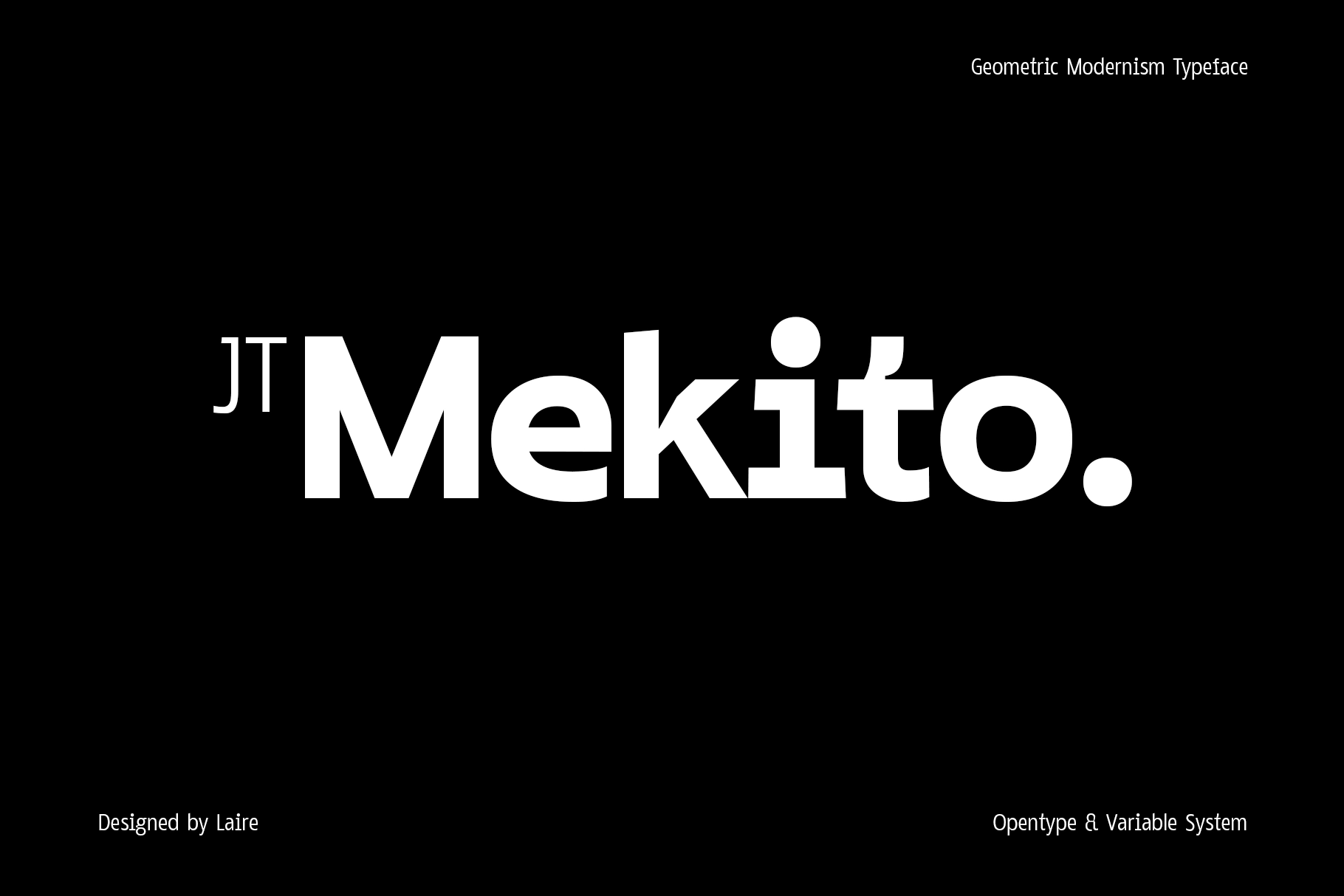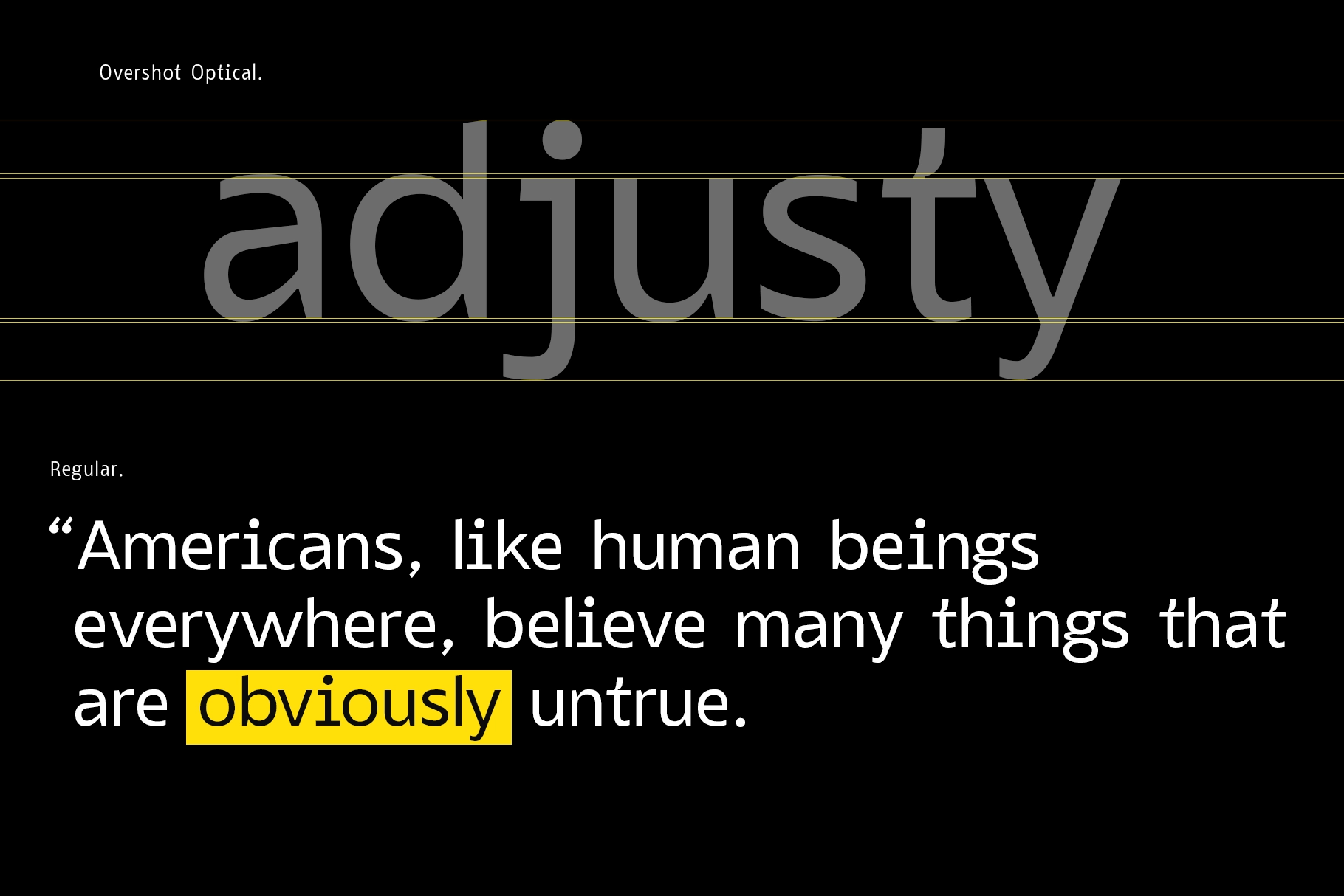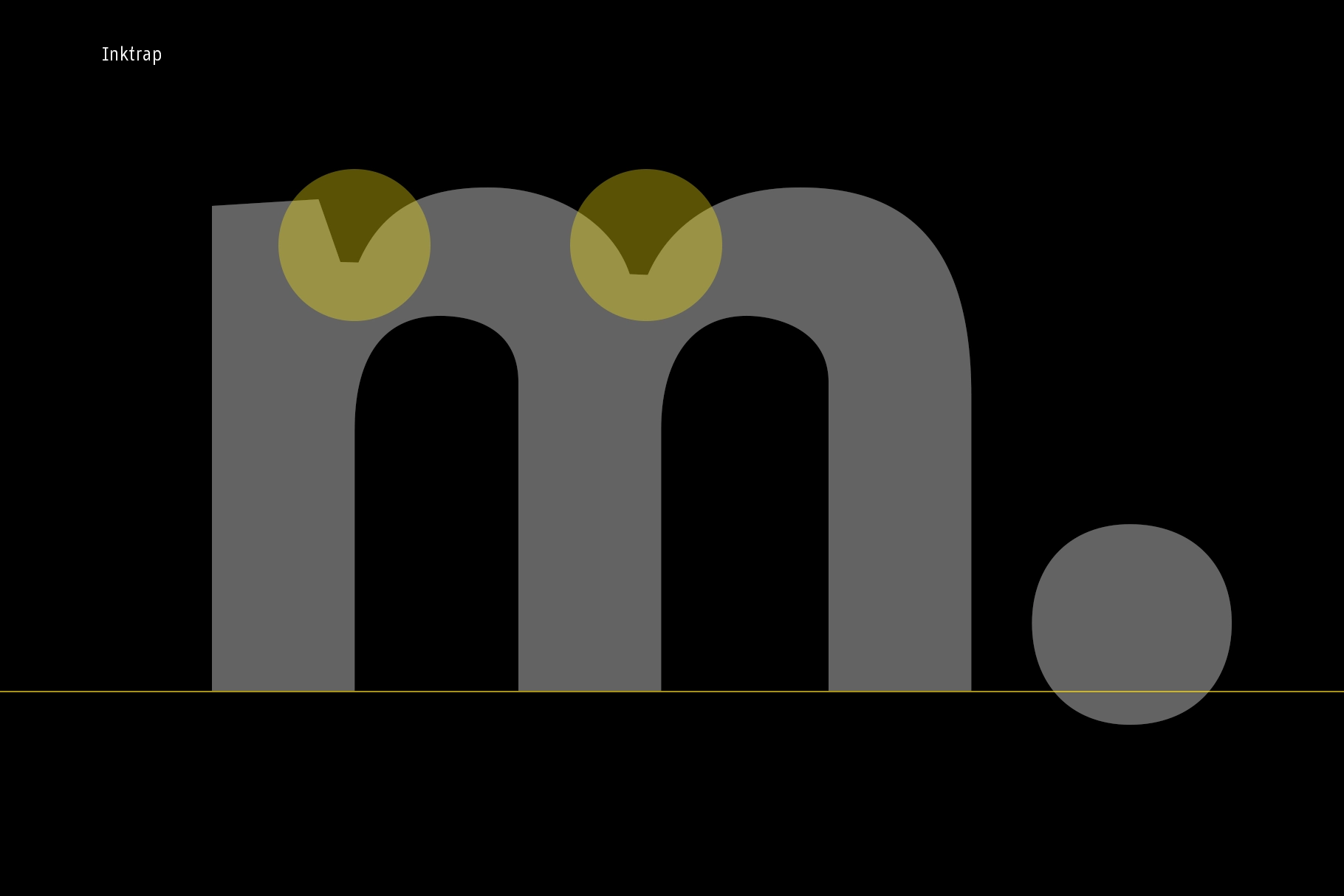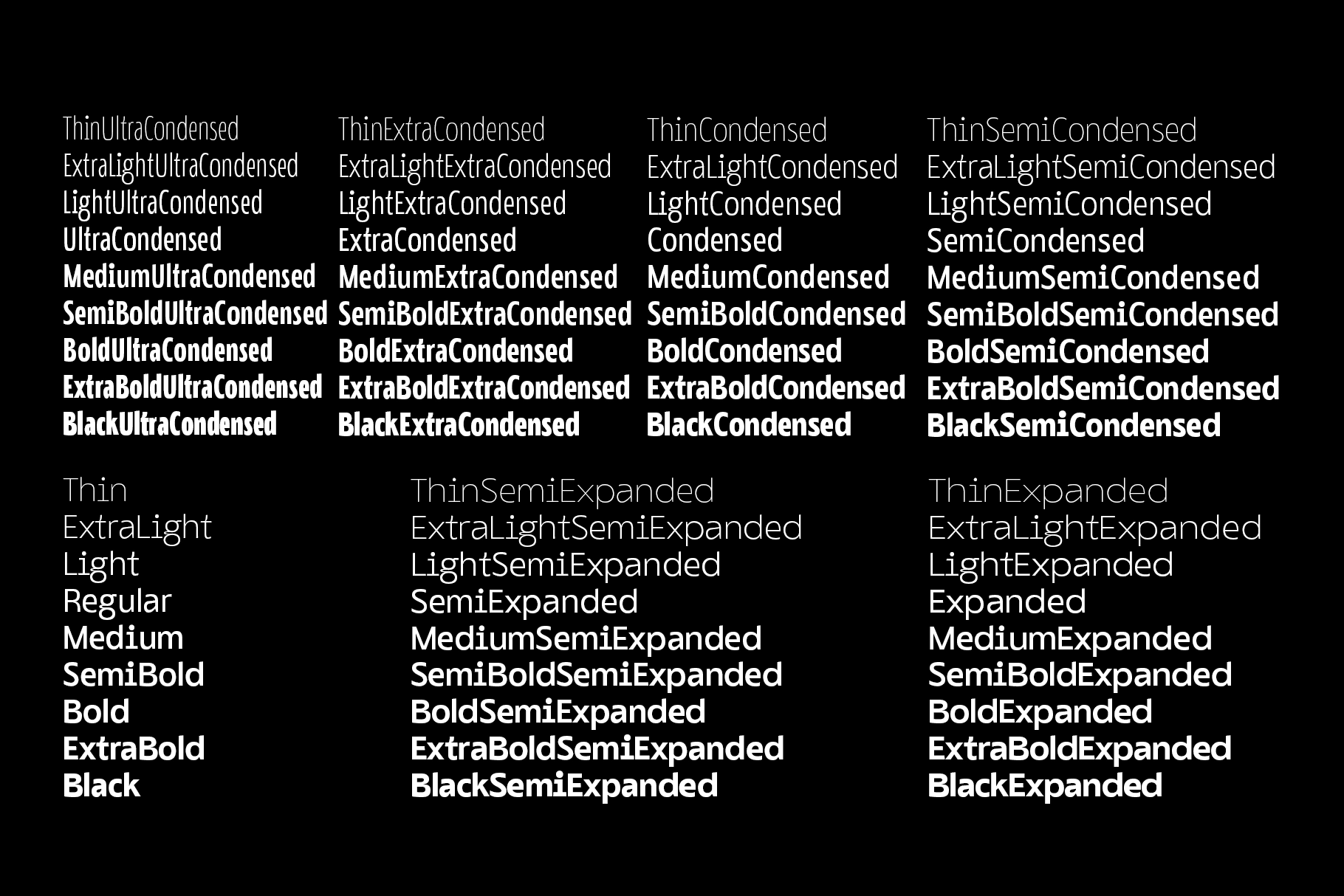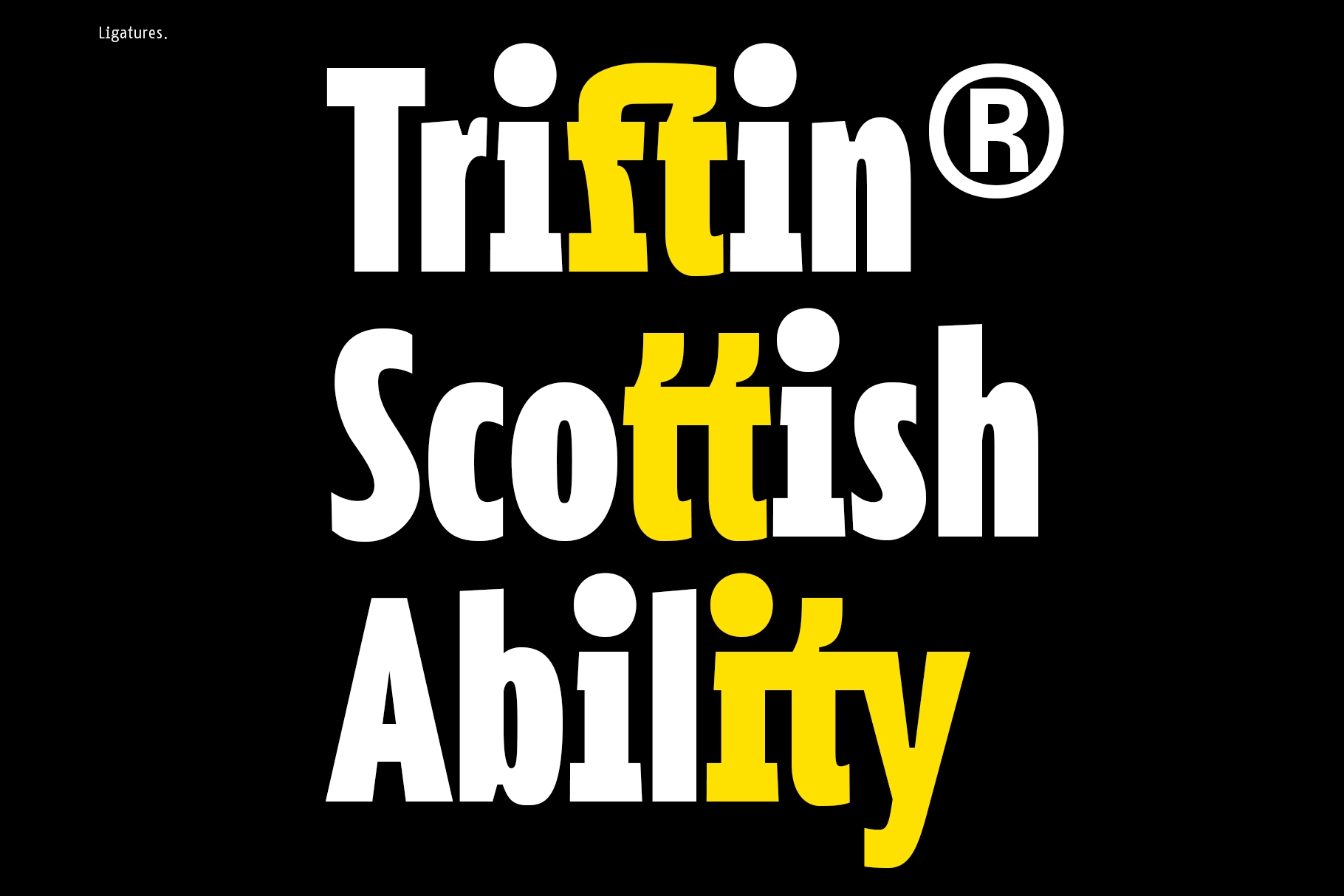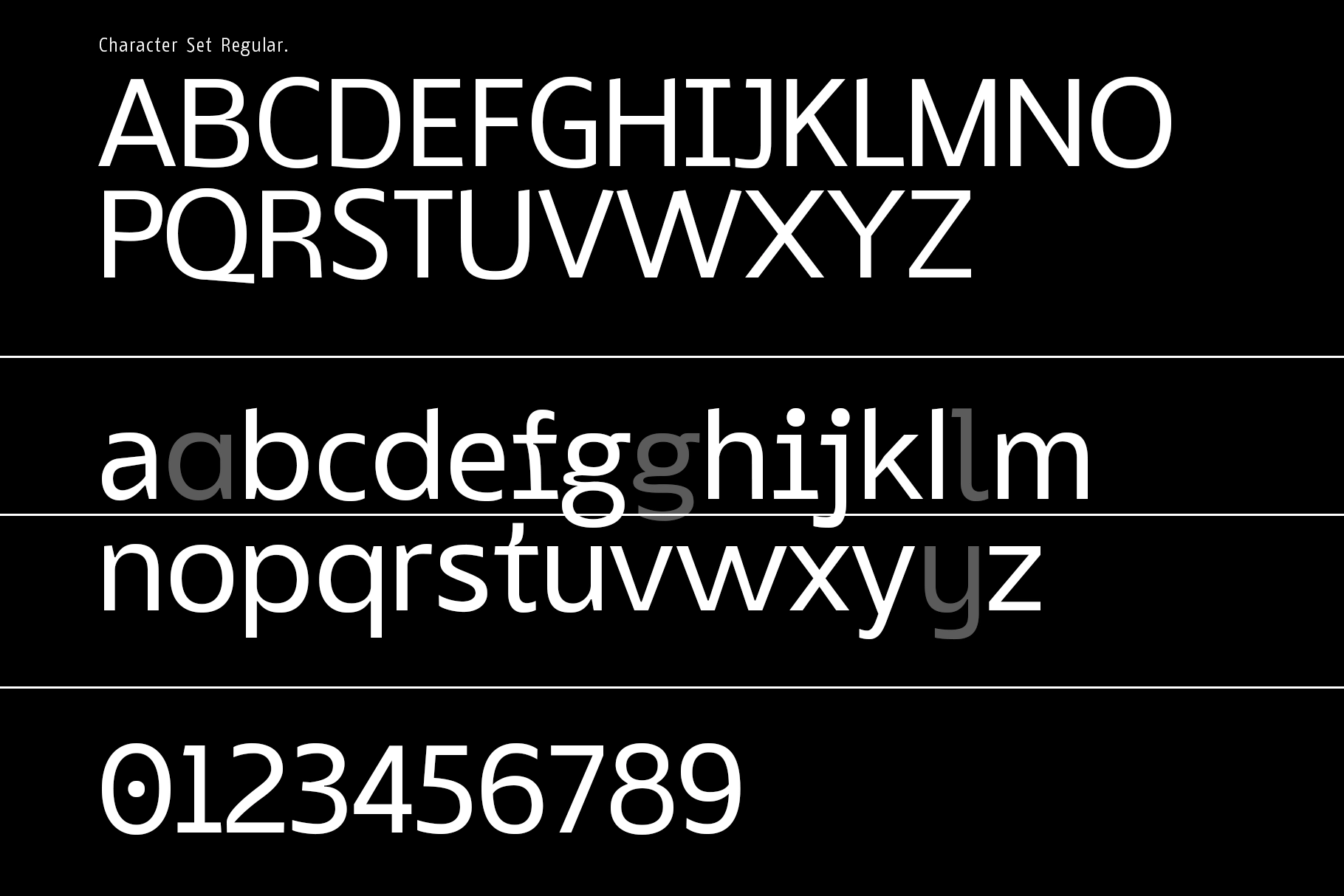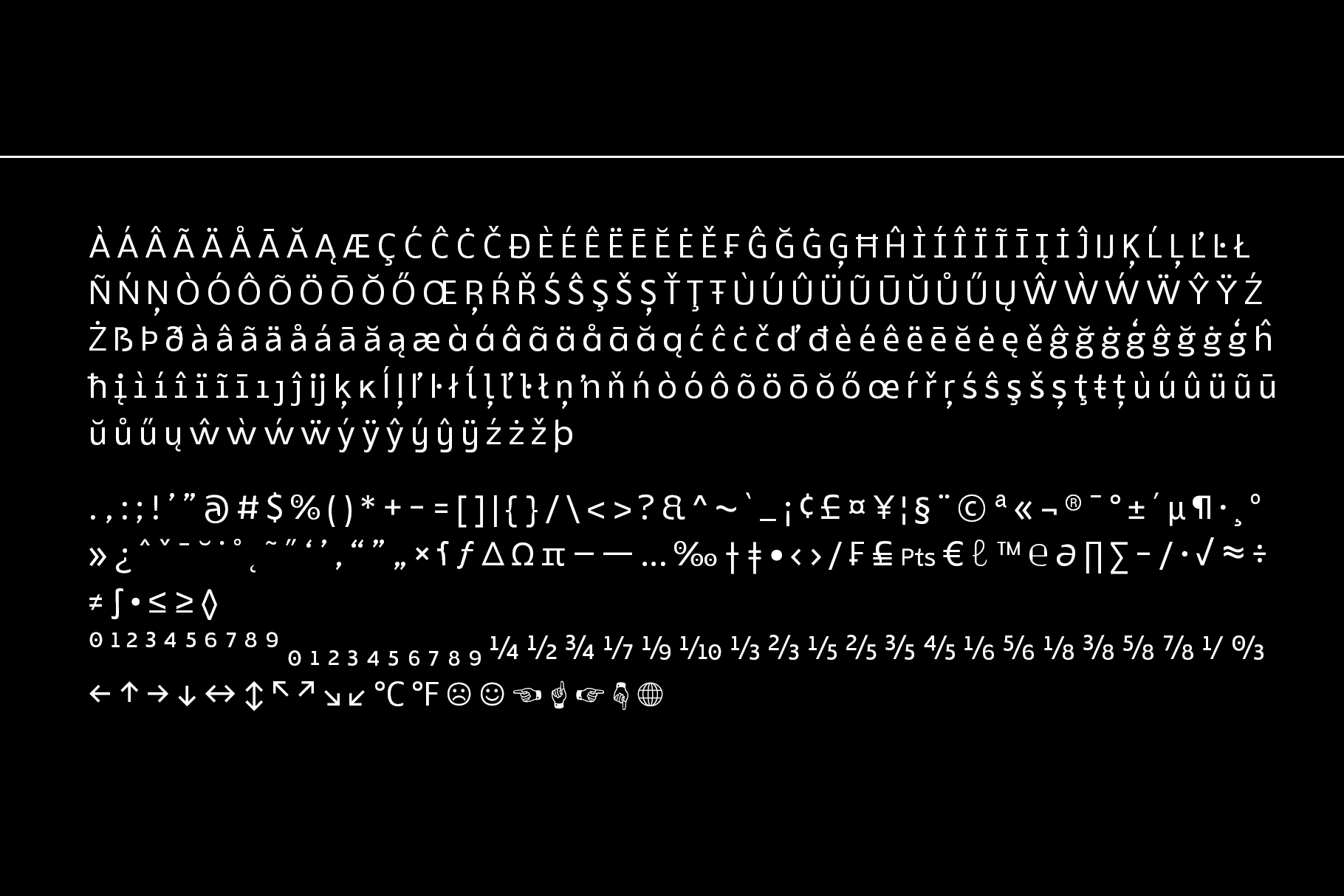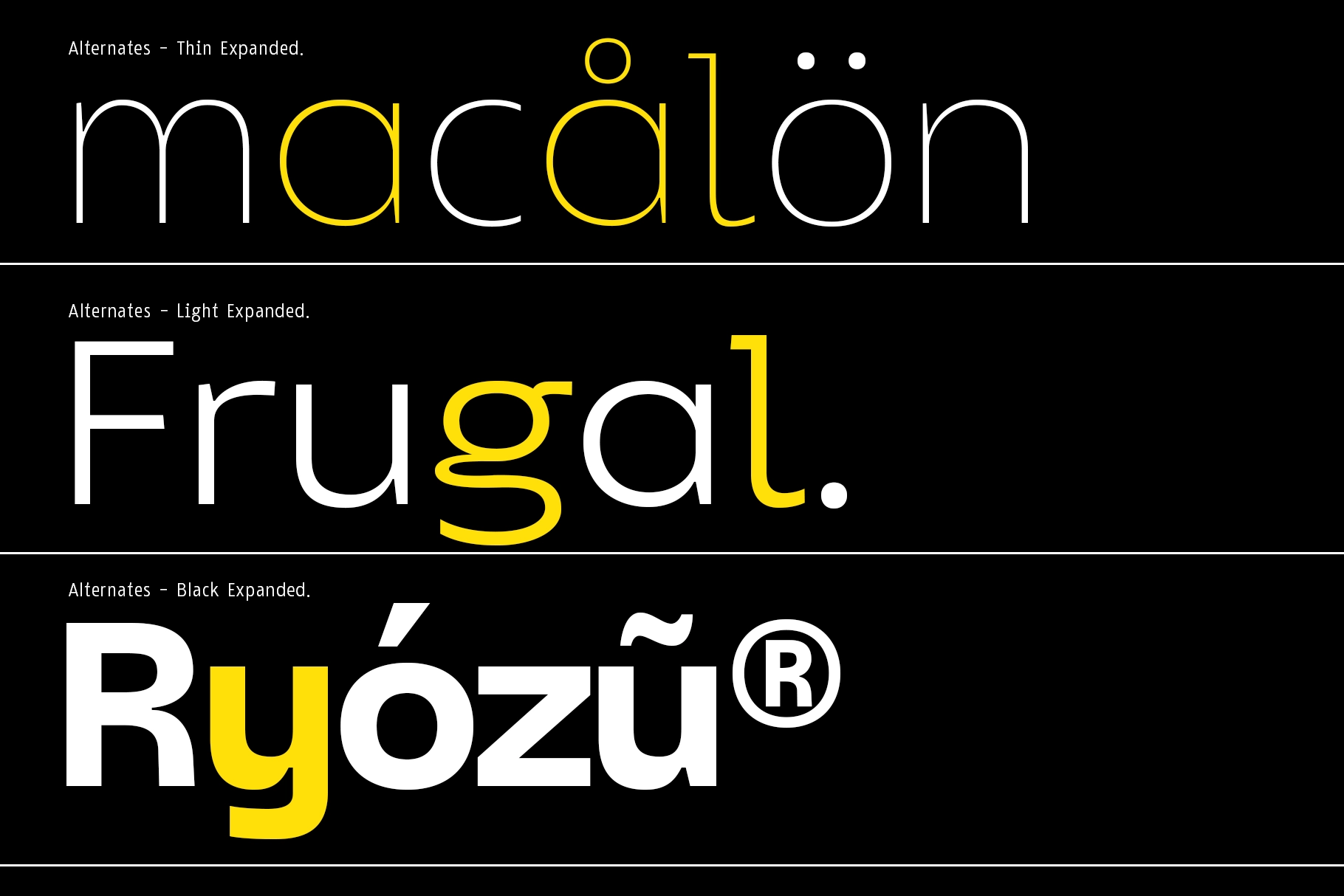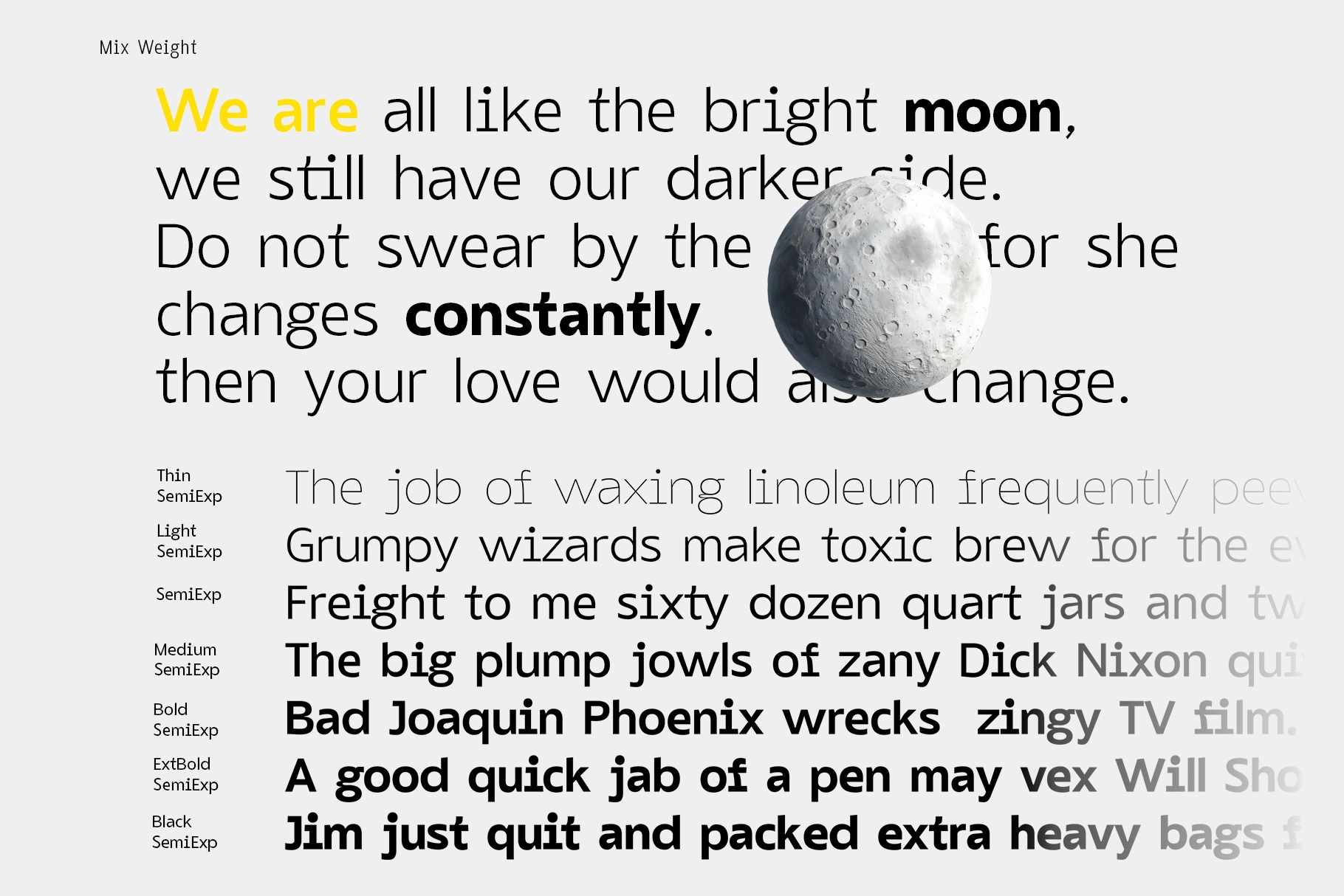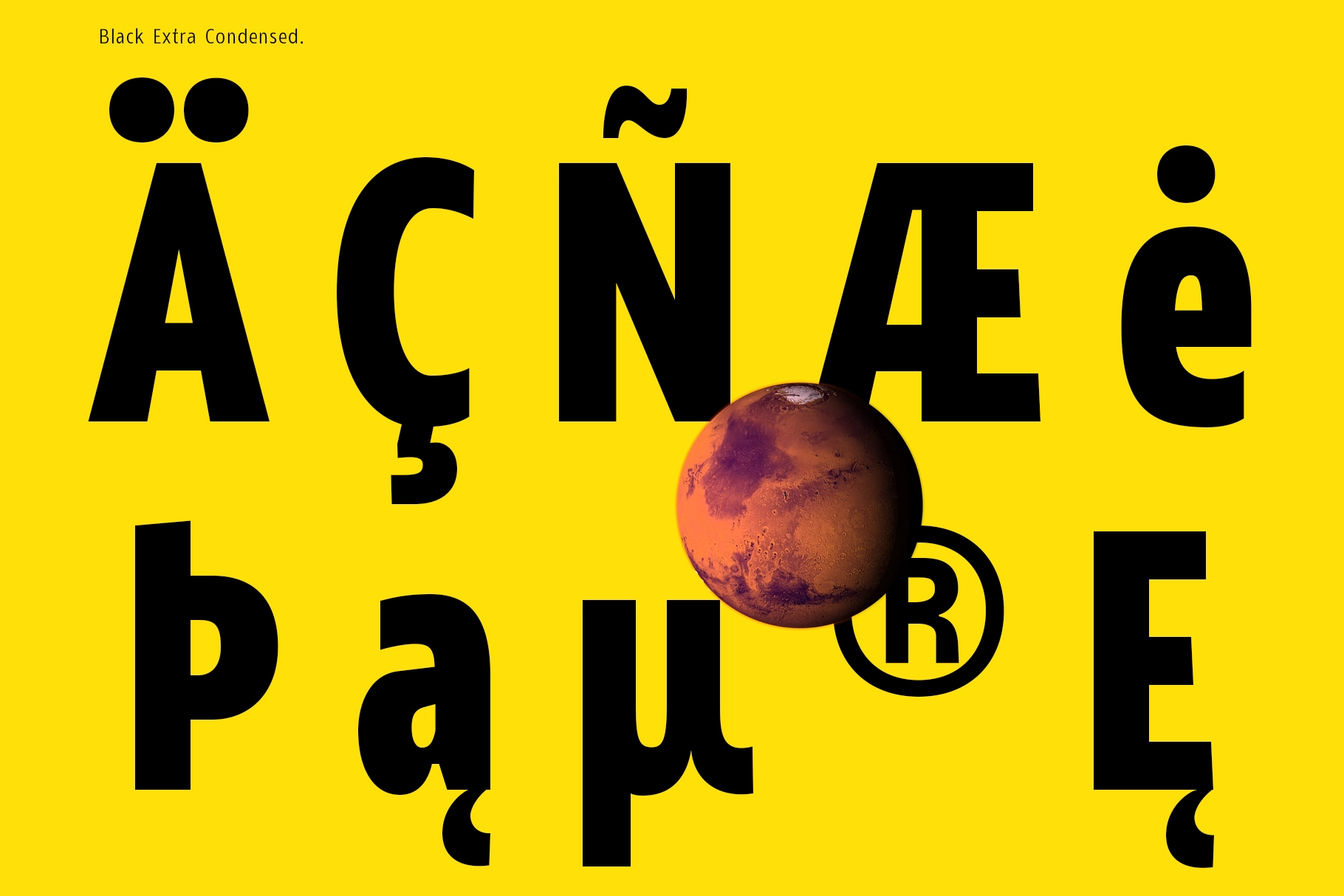
JT Mekito - Geometric Sans Font Family
This geometric sans serif family is precise, versatile, and built for serious typographic systems . Its clean structure, Gothic-inspired proportions, distinctive details on letters like “f” and “t,” and mono-styled “i” give it a technical personality while keeping text clear at small sizes and sharp in large display settings.
Mekito is ideal for branding systems, editorial layouts, app interfaces, website typography, poster design, packaging, wayfinding, corporate identities, product campaigns, presentation design, dashboards, tech visuals, and more. With 63 styles across multiple widths and a variable font setup, it gives designers broad control over hierarchy, density, and tone without losing consistency across the family.
- 63 weight and width styles
- Variable Font
- Weights from Thin to Black
- Widths: Ultra Condensed, Extra Condensed, Semi Condensed, Regular, Semi Expanded, Expanded
- 485 glyphs
- Supports 89 languages